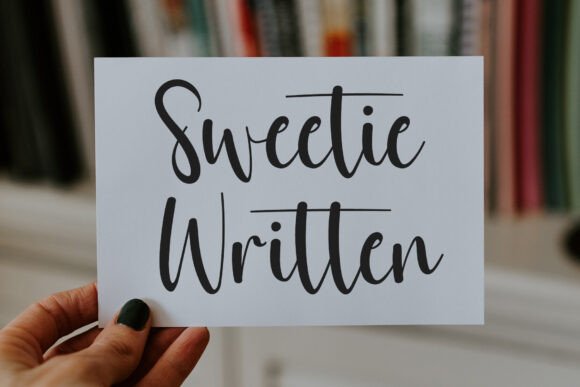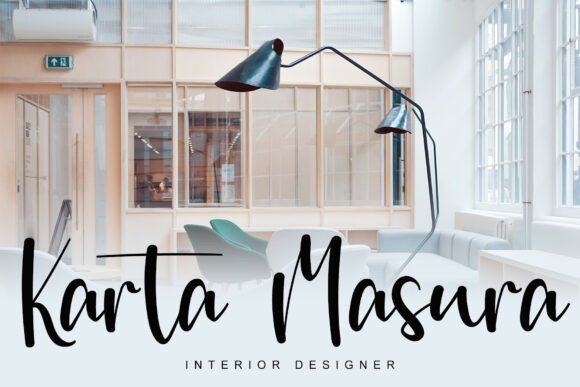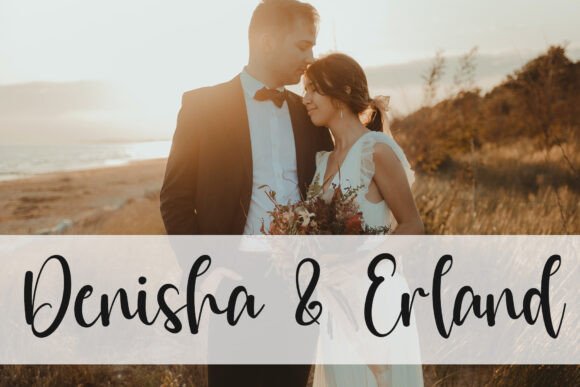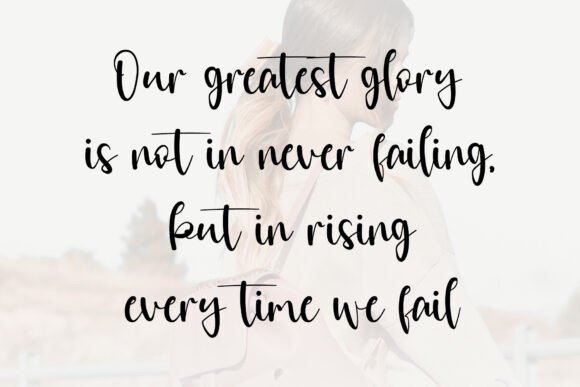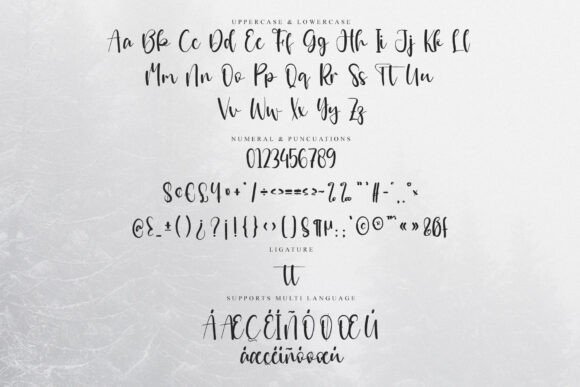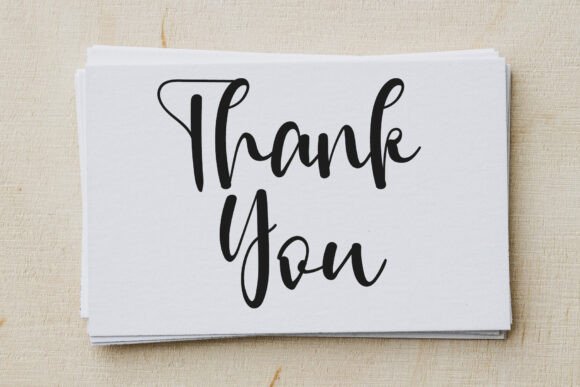
Introducing Charming Valentine: The Magical Script Font for Your Creative Projects
Are you looking for a font that can add a touch of elegance to your creative projects? Do you want to create stunning Instagram posts, beautiful calligraphy scripts, or DIY crafts that stand out from the crowd? Look no further than Charming Valentine, a magical script font designed to turn your ideas into true works of art.
The Charm of Charming Valentine
Charming Valentine is a carefully crafted script font that exudes elegance and sophistication. With its flowing lines, delicate curves, and whimsical flourishes, this font is perfect for adding a touch of romance and charm to any project. Whether you’re a designer, crafter, or DIY enthusiast, Charming Valentine is sure to inspire your creativity and help you create something truly special.
Perfect for Instagram and Social Media
In today’s digital age, having a strong online presence is crucial for designers, crafters, and small businesses. With Charming Valentine, you can create stunning Instagram posts, Facebook graphics, and other social media content that will grab the attention of your audience and leave a lasting impression. This font is specifically designed to work well in digital formats, ensuring that your text looks beautiful and elegant on any device.
Endless DIY Possibilities
Charming Valentine is not just limited to digital use; it’s also perfect for a wide range of DIY projects. Use it to create beautiful calligraphy scripts for handmade cards, gift tags, and other paper crafts. You can also use it to add a personal touch to your home decor, creating elegant signs, banners, and other decorative items that will make your space stand out.
Key Features of Charming Valentine
- Magical script font: Charming Valentine is a unique and elegant script font that will add a touch of magic to your projects.
- Elegant and sophisticated: This font is perfect for creating high-end designs, DIY projects, and social media content that exudes elegance and sophistication.
- Whimsical flourishes: Charming Valentine features delicate curves and whimsical flourishes that will add a touch of romance and charm to your projects.
- Perfect for digital and print use: This font is designed to work well in both digital and print formats, making it perfect for a wide range of applications.
Tips for Using Charming Valentine
To get the most out of Charming Valentine, here are a few tips to keep in mind:
- Use it sparingly: While Charming Valentine is a beautiful font, it can be overwhelming if used too much. Use it sparingly to add a touch of elegance to your projects.
- Experiment with colors: Charming Valentine looks beautiful in a range of colors, from soft pastels to rich jewel tones. Experiment with different colors to find the perfect combination for your project.
- Pair it with other fonts: Charming Valentine can be paired with other fonts to create a unique and interesting look. Try pairing it with a bold sans-serif font for a striking contrast.
Charming Valentine is a magical script font that is sure to inspire your creativity and help you create stunning projects. With its elegant lines, delicate curves, and whimsical flourishes, this font is perfect for designers, crafters, and DIY enthusiasts who want to add a touch of romance and charm to their work. Whether you’re looking for fonts for Instagram, calligraphy scripts for DIY projects, or elegant text for your social media content, Charming Valentine is the perfect choice.